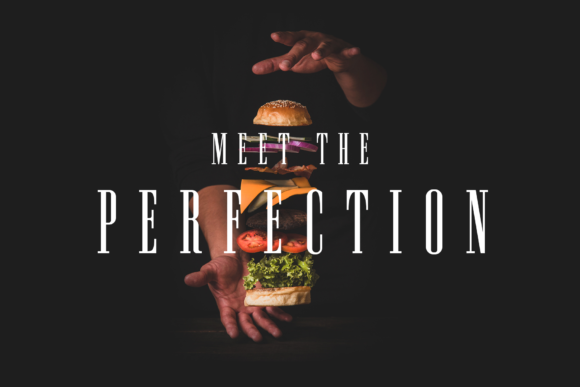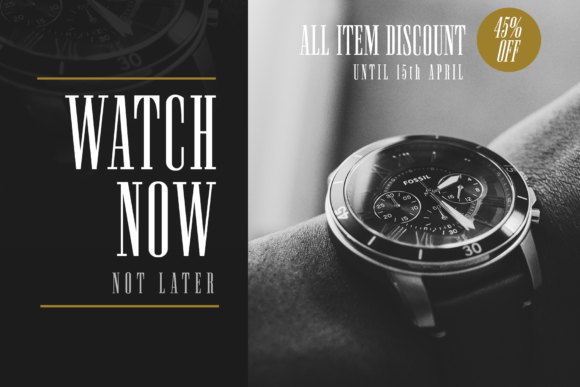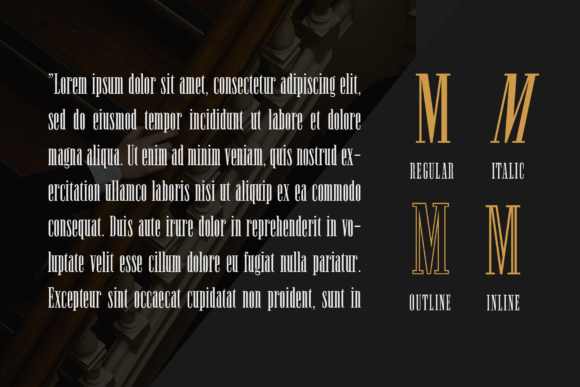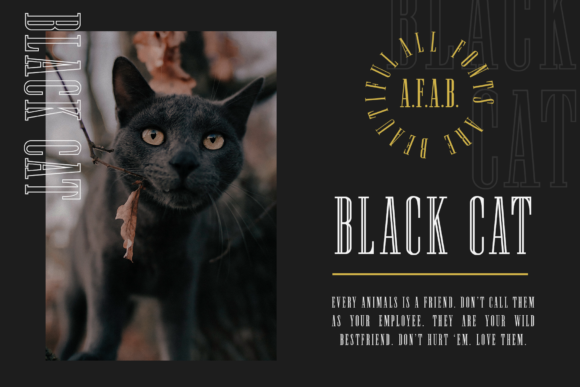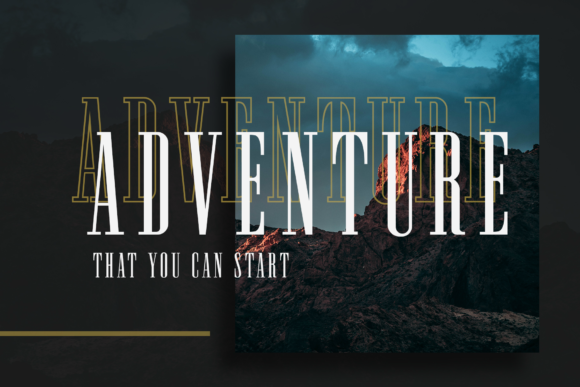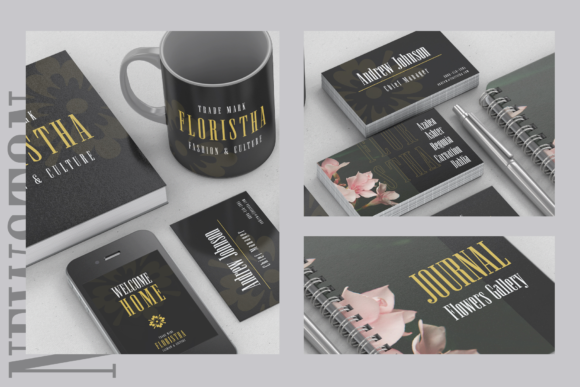
Introduction to Newston Font
Have you ever found yourself in the middle of a creative project, staring at a blank canvas, and wondering which font will bring your vision to life? It’s a moment we’ve all been in, searching for the perfect combination of style and sophistication to elevate our design. This is where the Newston Font comes in – a classic and serious serif font with a bold twist that will add a layer of sophistication to any design project.
As a valuable design resource, the Newston Font is perfect for designers looking to create high-quality designs with a professional touch. With its elegant lines and refined details, it’s the perfect choice for any creative project that requires a level of sophistication. And the best part? You can download the Newston Font for free, complete with a transparent background, making it easy to integrate into your designs.
Key Features of Newston Font
- Unique, modern design aesthetic perfect for branding and marketing materials
Honest Review: Newston Font
I recently stumbled upon the Newston Font, and I’m excited to share my thoughts on this design resource. The first thing that caught my attention was the high quality of the font, with crisp and clear lines that make it perfect for various creative projects.
One of the best things about the Newston Font is its flexibility. It comes in multiple weights and styles, making it easy to use in a variety of contexts. I was also impressed by the transparent background, which allows for seamless integration with any design.
Here are some of the features that I found particularly useful:
- ✨ High-quality design that looks great on any screen
- ✨ Multiple weights and styles for added flexibility
That being said, there are a few limitations to consider:
- ⚠️ Limited character set, which may not be ideal for complex designs
- ⚠️ Not as extensive as some other font libraries, which may limit its appeal to designers with very specific needs
Overall, I’m impressed with the Newston Font and would recommend it to designers looking for a high-quality, versatile font for their creative projects. Just be aware of its limitations and use it accordingly.
Experiment with different font sizes and styles to find the perfect balance for your design. Combine the Newston Font with other design elements, such as images and graphics, to create a unique and eye-catching visual identity.
The Newston Font is perfect for a wide range of creative projects, including:
- Business cards and branding materials
- Social media graphics and presentations
- Wedding invitations and event materials